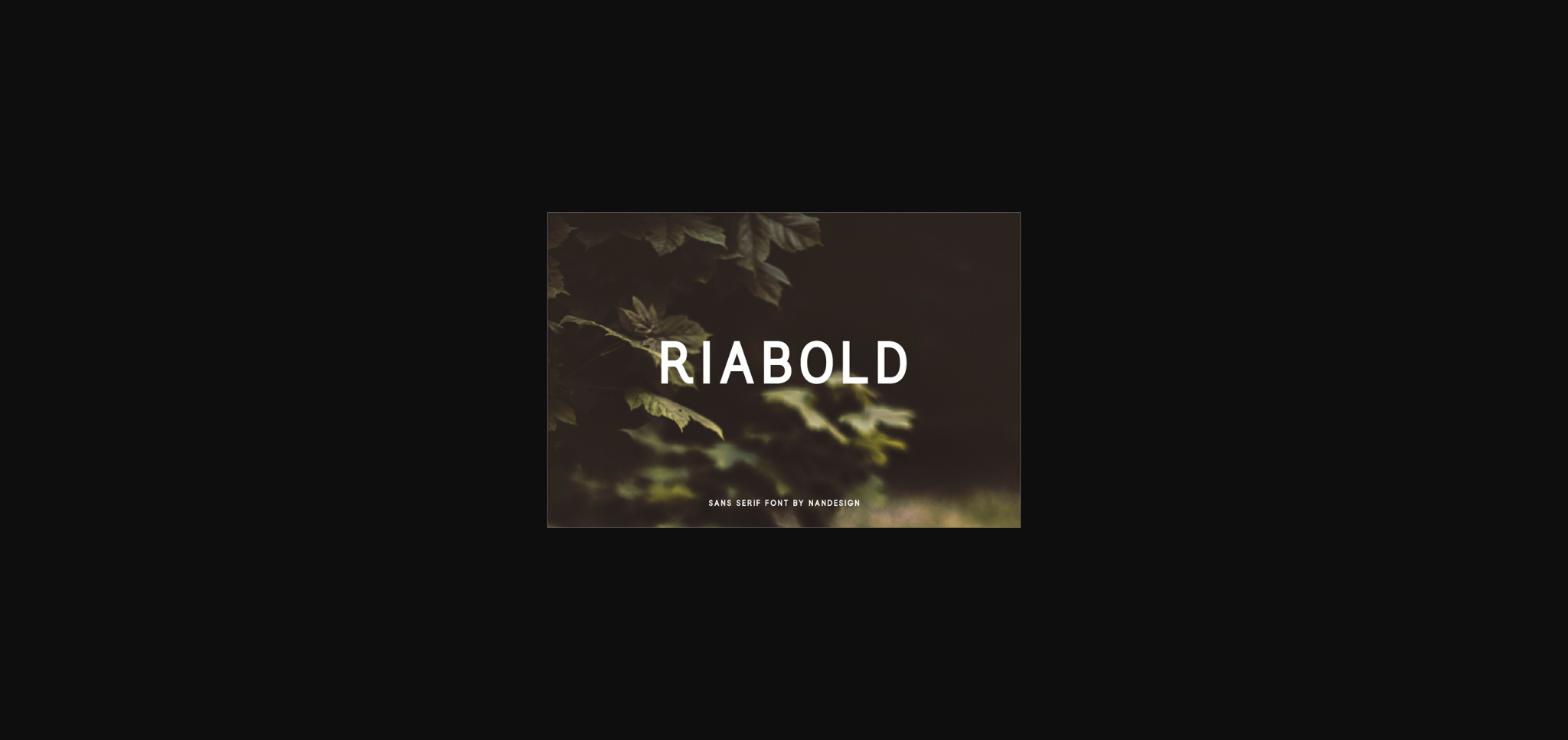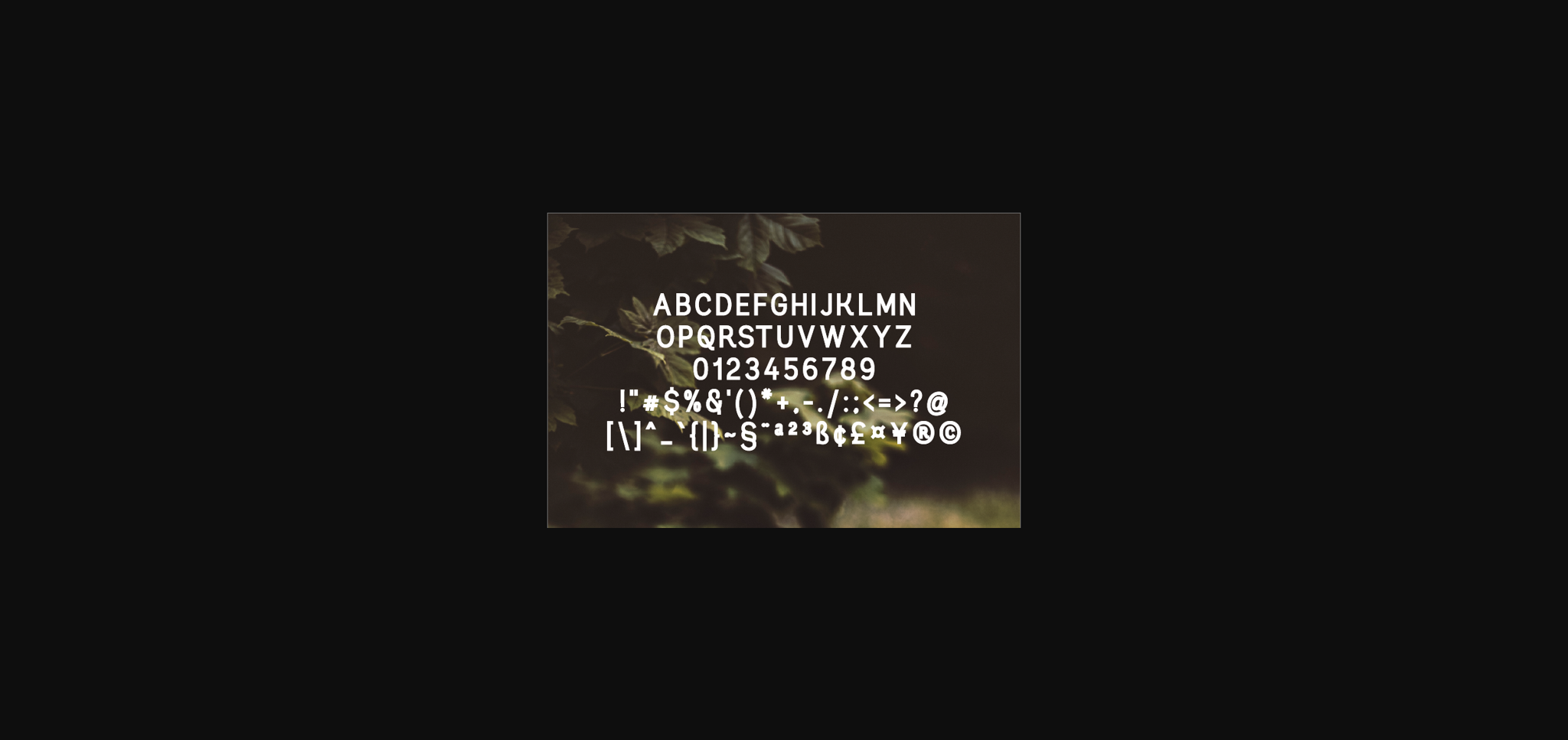
About Riabold Font
Riabold is a modern and casual sans serif font with an undeniably clean feel. With its neat and beautiful arrangement of letters, this typeface will look outstanding in both formal and non-formal designs.